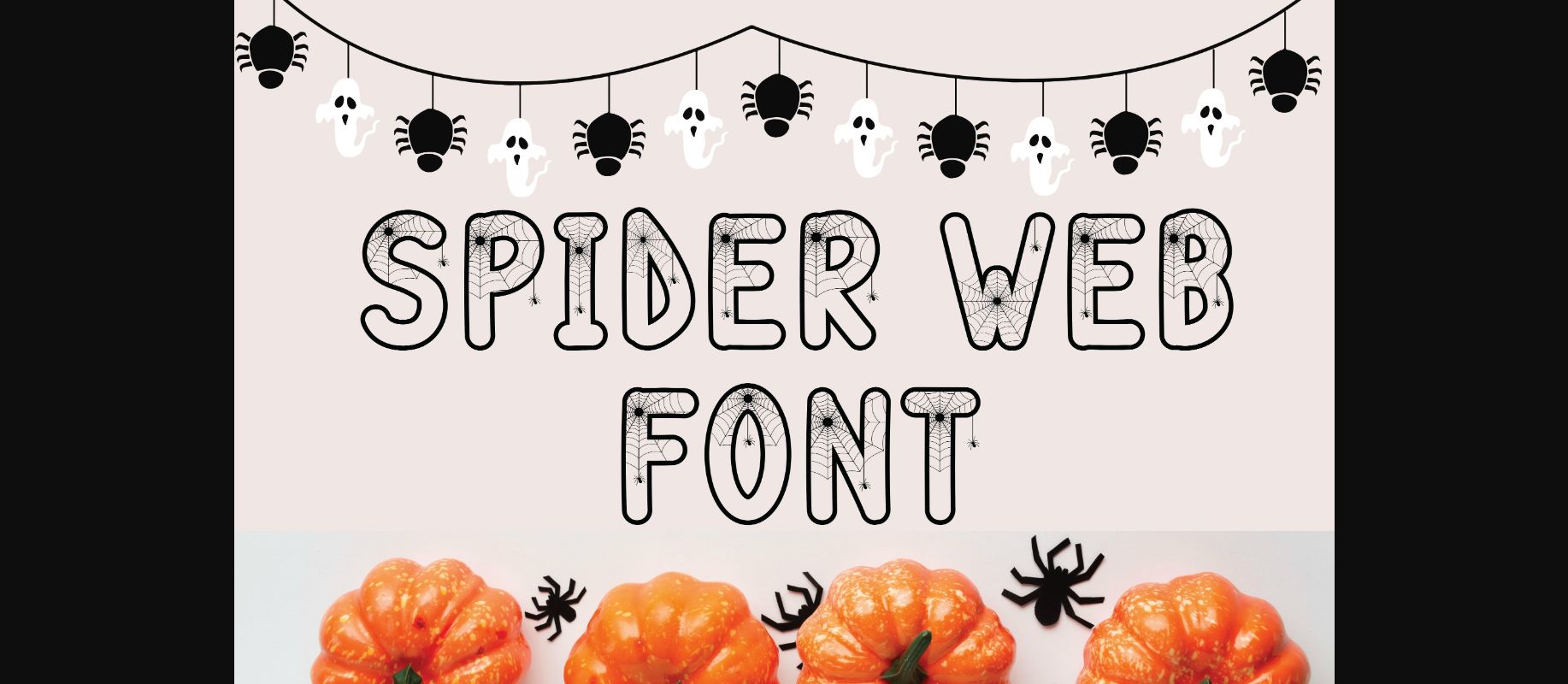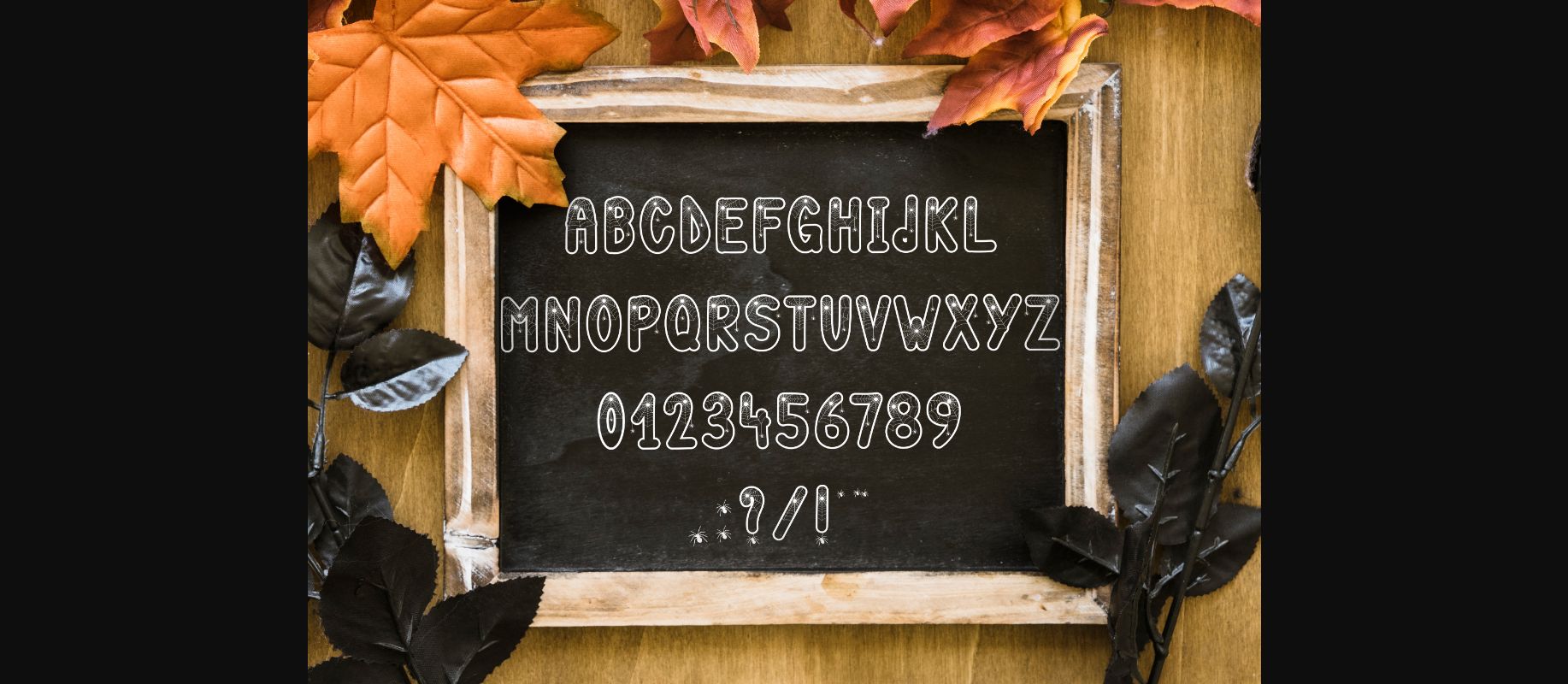
Spider Web is a fun, uniquely designed and cool decorative font. It embodies playfulness and authenticity and is the perfect choice for any children activity or school project.